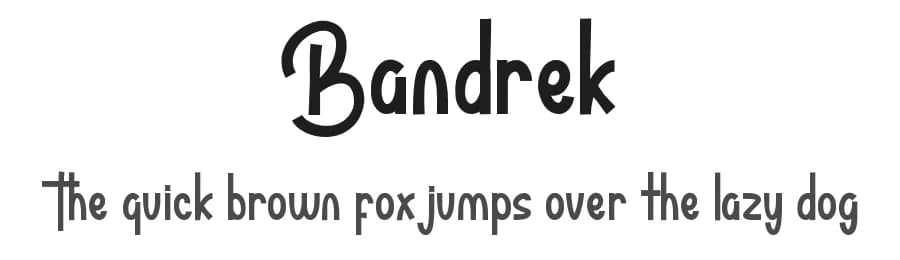
About Bandrek Font
- Bold, Elegant, Flowing, Script
Bandrek Font is a script font that shines as a display or heading face. Pair it with a clean sans-serif or serif font for body text β the contrast creates a clear hierarchy while the two styles stay balanced and easy to read.
Bandrek Font